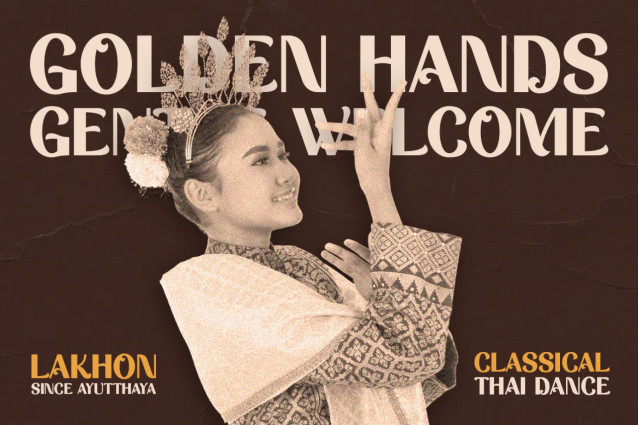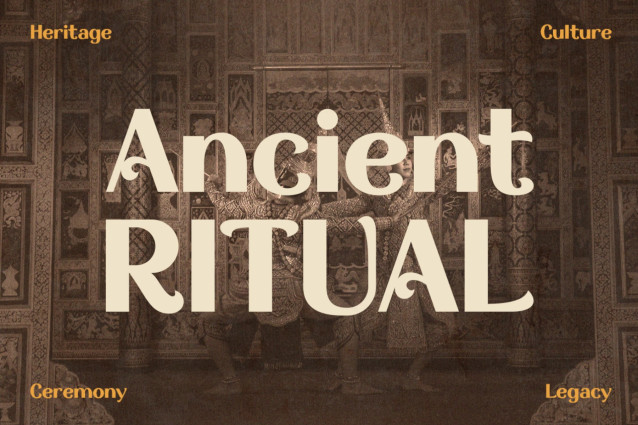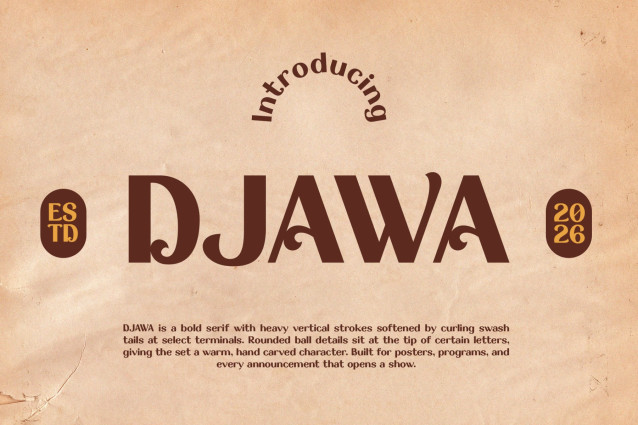
Vintage Font DJAWA brings a bold heritage style with a warm, handcrafted feel. It draws inspiration from traditional culture, vintage posters, ceremonial artwork, and classic editorial design. Moreover, its strong letterforms create an authentic and memorable look. Decorative details add extra character to every headline. As a result, DJAWA works well for posters, branding, packaging, labels, invitations, and editorial designs.
First, DJAWA creates a distinctive vintage mood with bold and expressive letterforms. In addition, it includes Multilingual Support for 67 Languages. Therefore, you can use it for local and international creative projects. Its traditional character suits cultural festivals, heritage campaigns, artisan products, and restaurant branding. Furthermore, DJAWA fits historical artwork and storytelling designs. It also works beautifully for logos, headlines, posters, packaging, and promotional graphics. Because of this, the font offers plenty of creative possibilities.